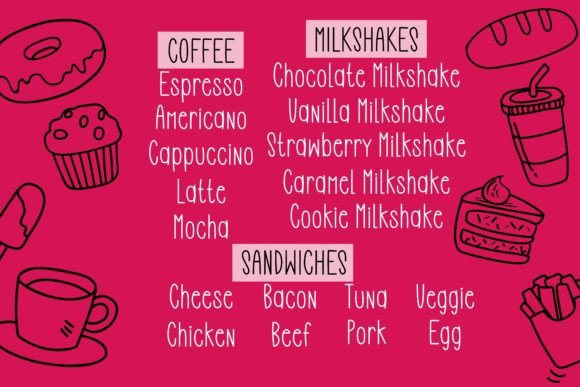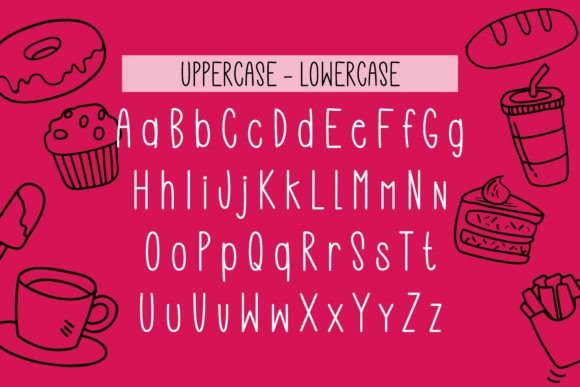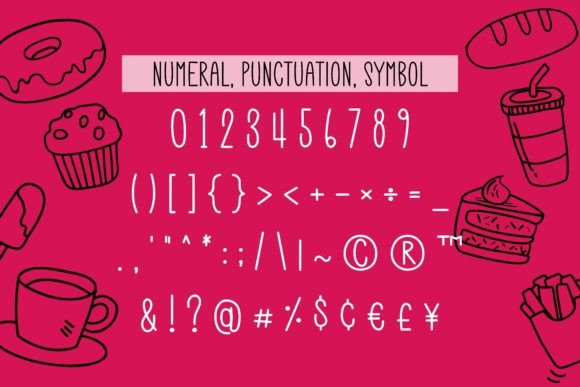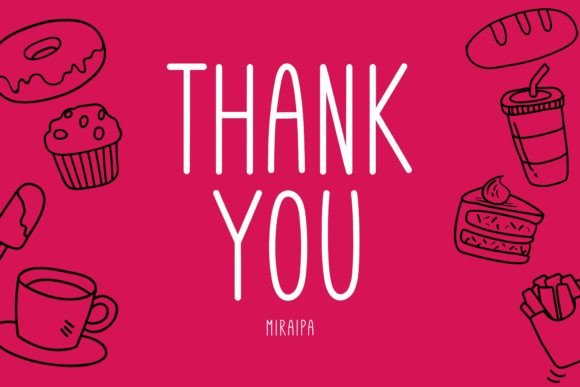
Introduction to Hungry Beauty Font
As designers, we’ve all been there – staring at a blank canvas, trying to bring our creative vision to life. The perfect font can make all the difference, elevating our designs from bland to grand. And when it comes to making a statement, the Hungry Beauty Font is a game-changer. Its modern and attractive sans-serif design is the epitome of contemporary style, perfect for digital media, advertising, and branding.
What sets Hungry Beauty Font apart is its versatility. Whether you’re working on a headline, body copy, or branding project, this high-quality font is the perfect design resource. With its clean and simple design, it creates a stylish and eye-catching look that’s sure to grab attention. Plus, with a transparent background, it’s easy to customize and integrate into any creative project.
Key Features of Hungry Beauty Font
- Unique, hand-drawn design with a touch of elegance and sophistication, making it perfect for creative projects.
- Excellent choice for designers looking for a unique and stylish design resource to elevate their creative project.
Honest Review: Hungry Beauty Font
One of the standout features of the Hungry Beauty Font is its high-quality design. The font is well-crafted, with clean lines and a modern aesthetic that makes it perfect for a variety of creative projects. I particularly liked its versatility, as it can be used for both digital and print designs.
- High-quality design that is perfect for creative projects ✨
- Translucent background, allowing for seamless integration with any design
- Modern aesthetic that is perfect for digital and print designs
- ⚠️ Limited font styles and variations available
- ⚠️ May not be suitable for projects requiring a large font library
Overall, I was impressed by the Hungry Beauty Font’s design quality and versatility. While it may have some limitations, it’s a great resource for designers looking to add a touch of elegance to their creative projects. I would definitely recommend it for any design project that requires a high-quality, modern font.
For the best results, use the Hungry Beauty Font on a transparent background to create a seamless and professional design. This font is perfect for creative projects, including invitations, social media graphics, and branding materials.
The Hungry Beauty Font is ideal for:
- Food and beverage branding
- Event invitations and promotional materials
- Social media graphics and advertising